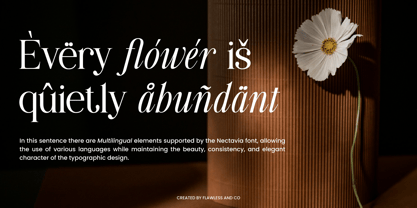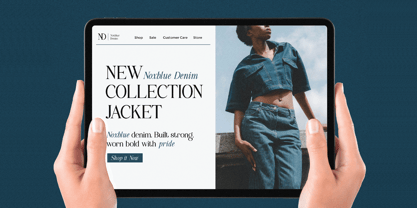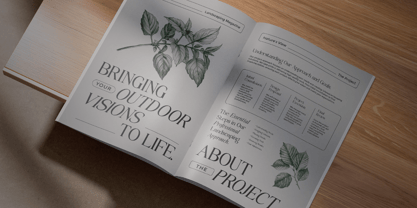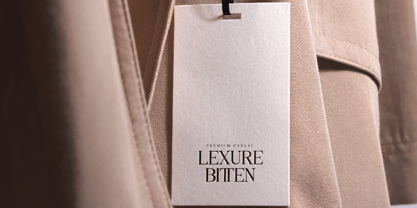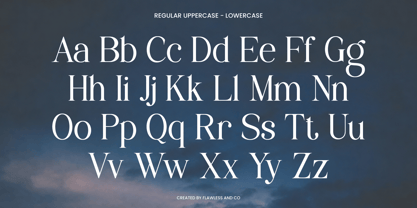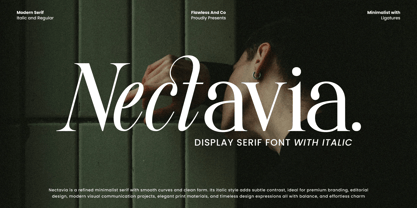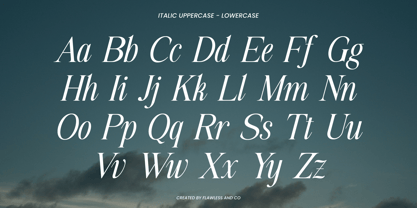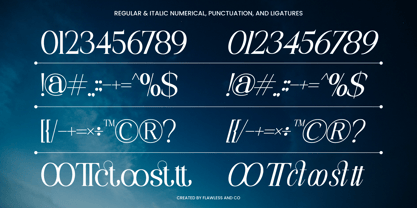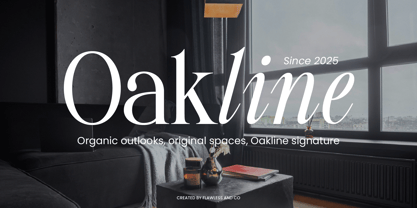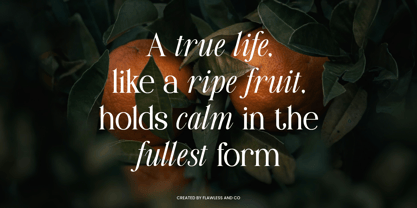
Nectavia
by Flawlessandco
The Nectavia Font Family was designed by Achmad Yani and published by Flawlessandco. Nectavia contains 2 styles and family package options. More about this family
Nectavia is a refined display serif with smooth curves, elegant proportions, and a modern minimalist aesthetic. Designed with a balance of sophistication and versatility, this font blends timeless serif tradition with contemporary flair. Its italic variation introduces subtle contrast, making it perfect for premium branding, editorial layouts, packaging design, wedding concepts, and luxury visual projects.
Features :
Multilingual, Uppercase alphabet A-Z, Lowercase alphabet a-z, Numbers 0-9, Some punctuation, Alternates & Ligatures